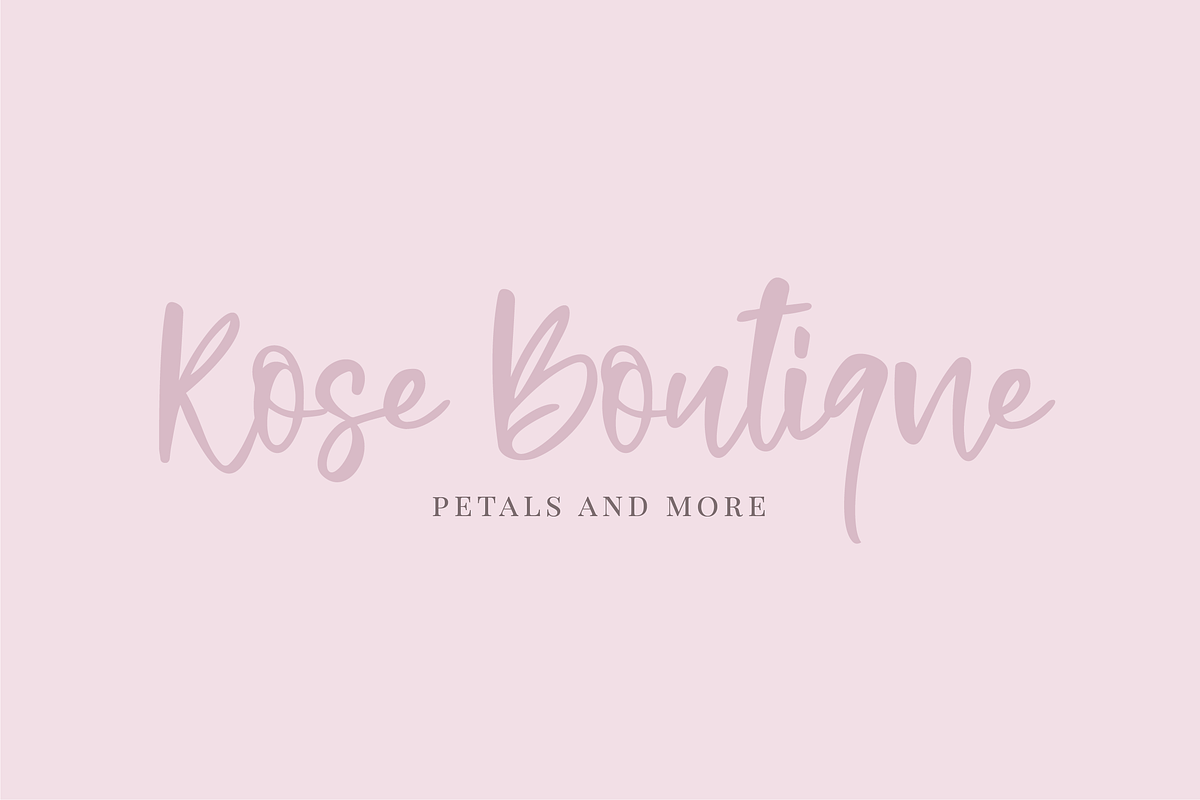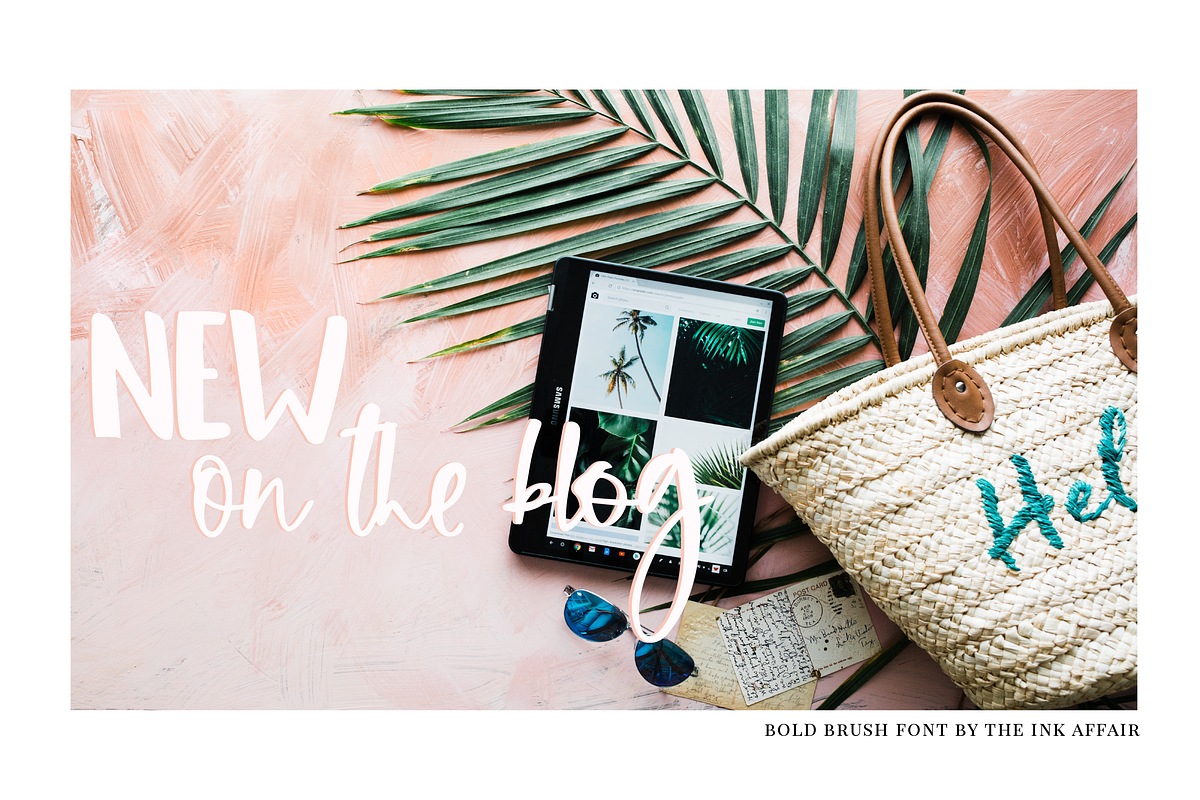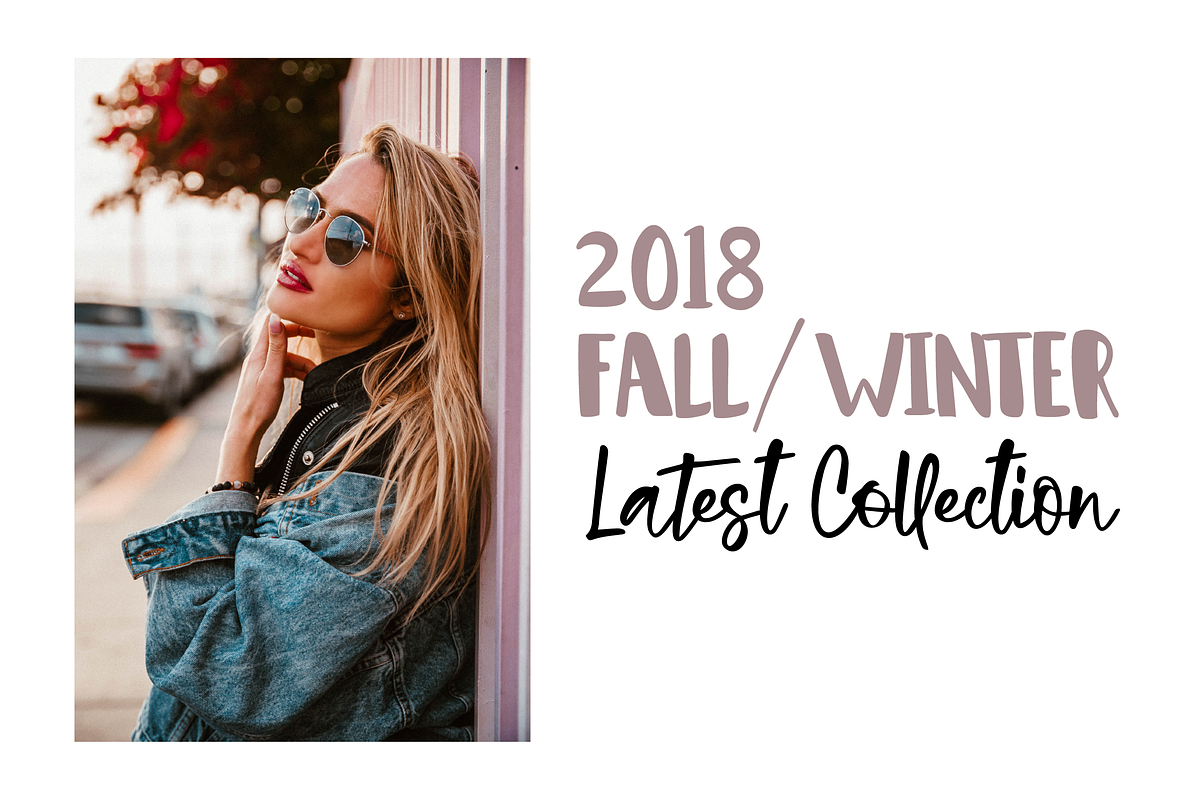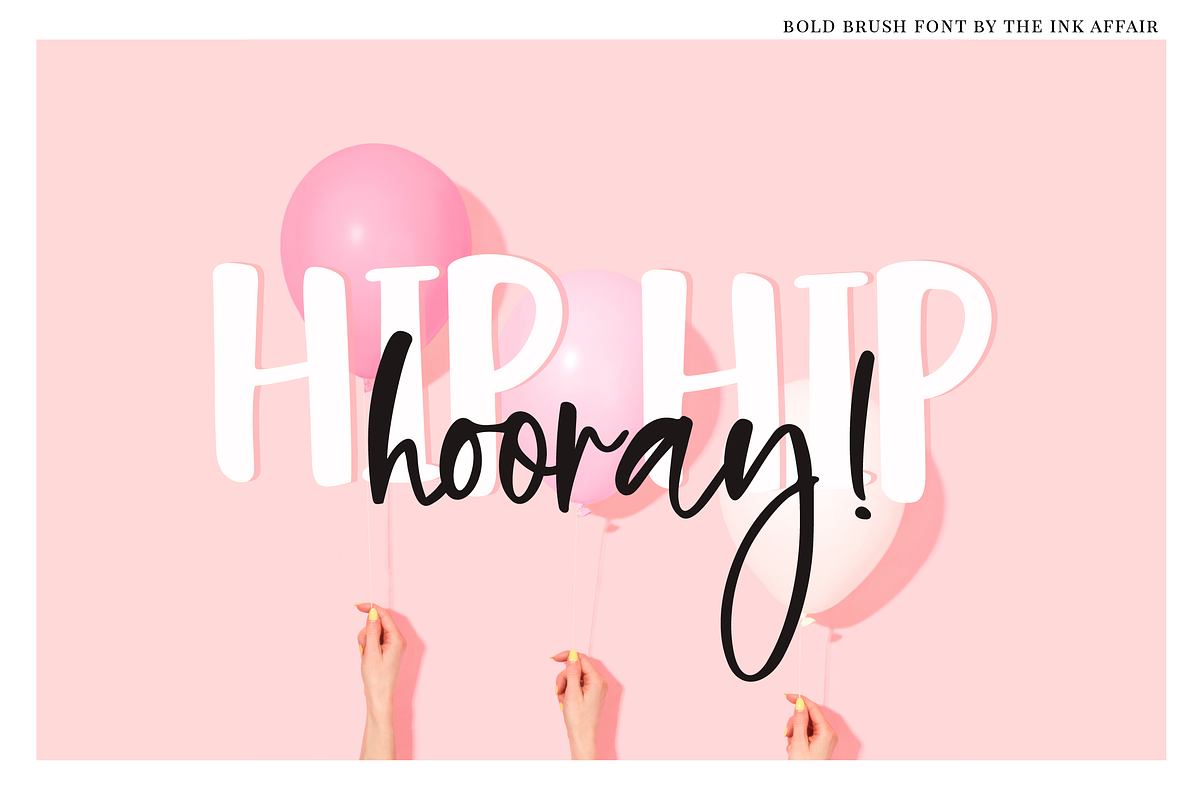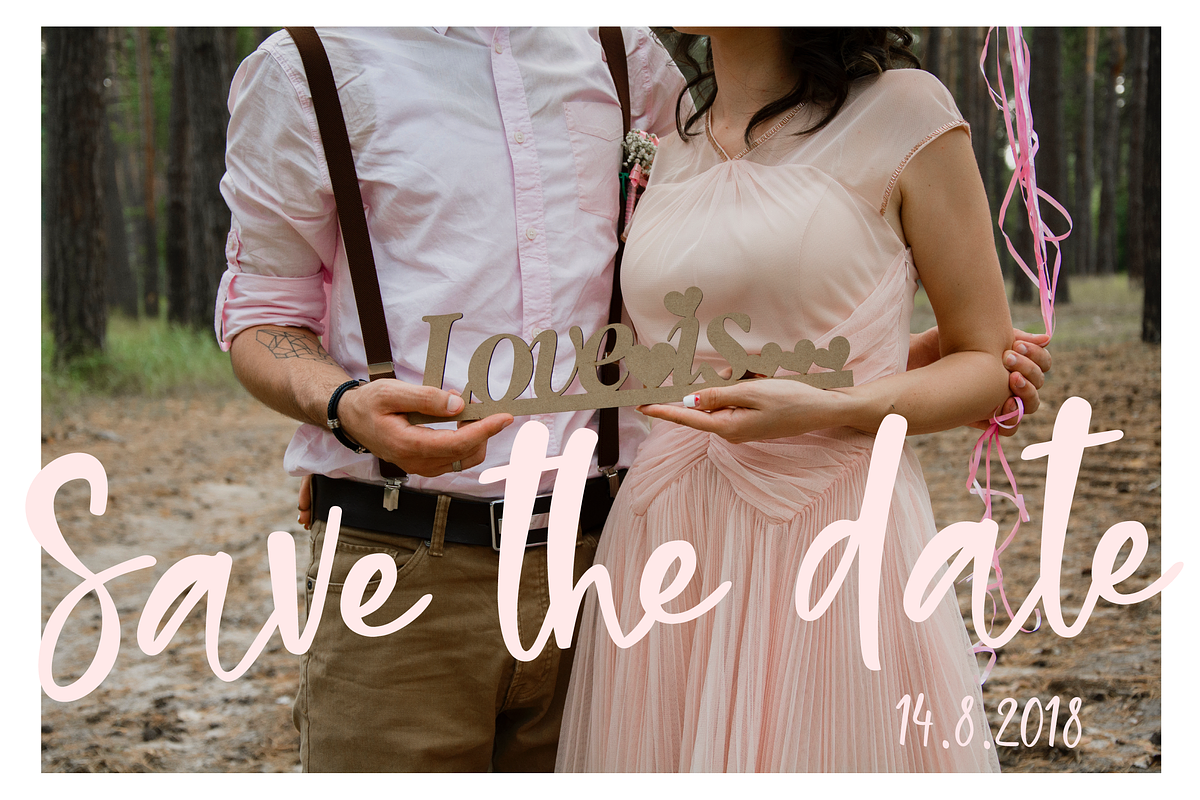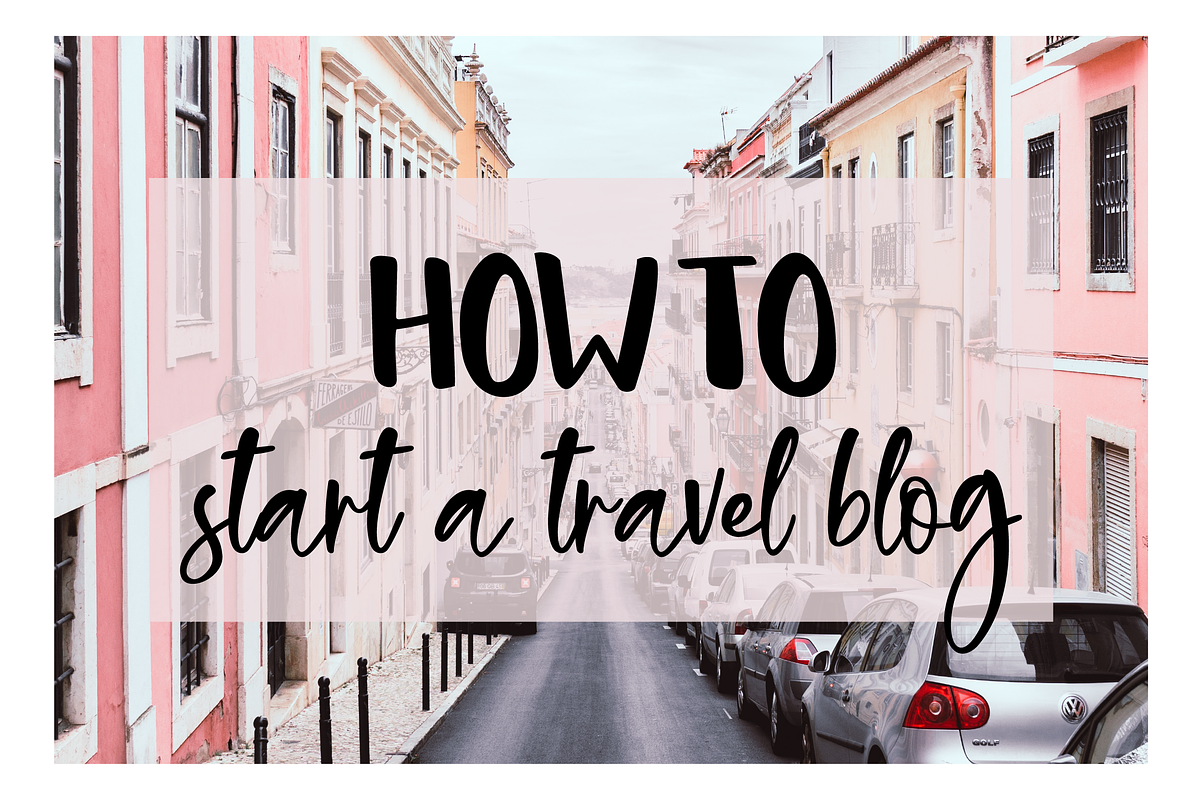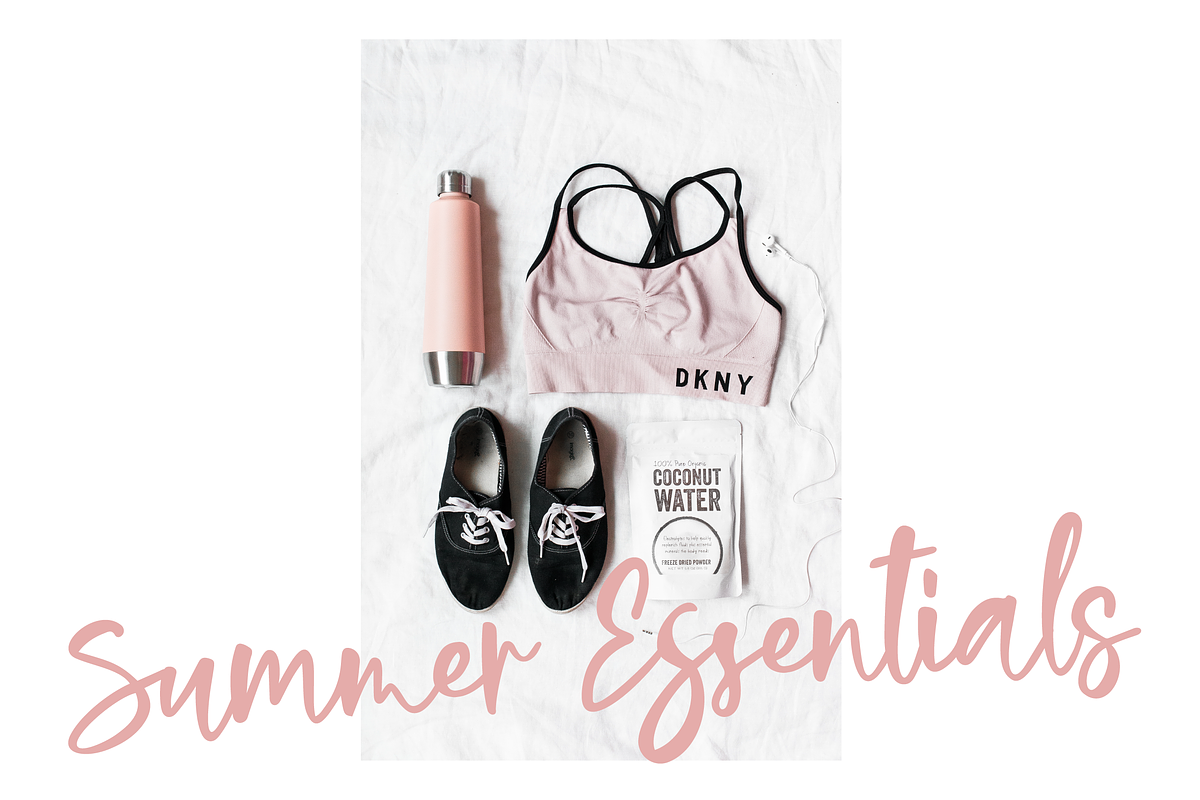
Bold Brush Font + Bonus Font
Introducing Bold Brush, a playful script font with two sets of uppercase as well as lowercase letters to add more authenticity to your designs. Bold Brush comes with a bonus font, Bold Brush Sans, a fun uppercase only font created using bold, thick strokes to add an element of cool to your designs.
Bold Brush - Contains two sets of uppercase as well as lowercase letters, ligatures, numbers and punctuations.
- Bold Brush Alt - Contains only the second/alternate set of letters for easy access.
- Bold Brush Sans - Contains Uppercase, lowercase and numbers.